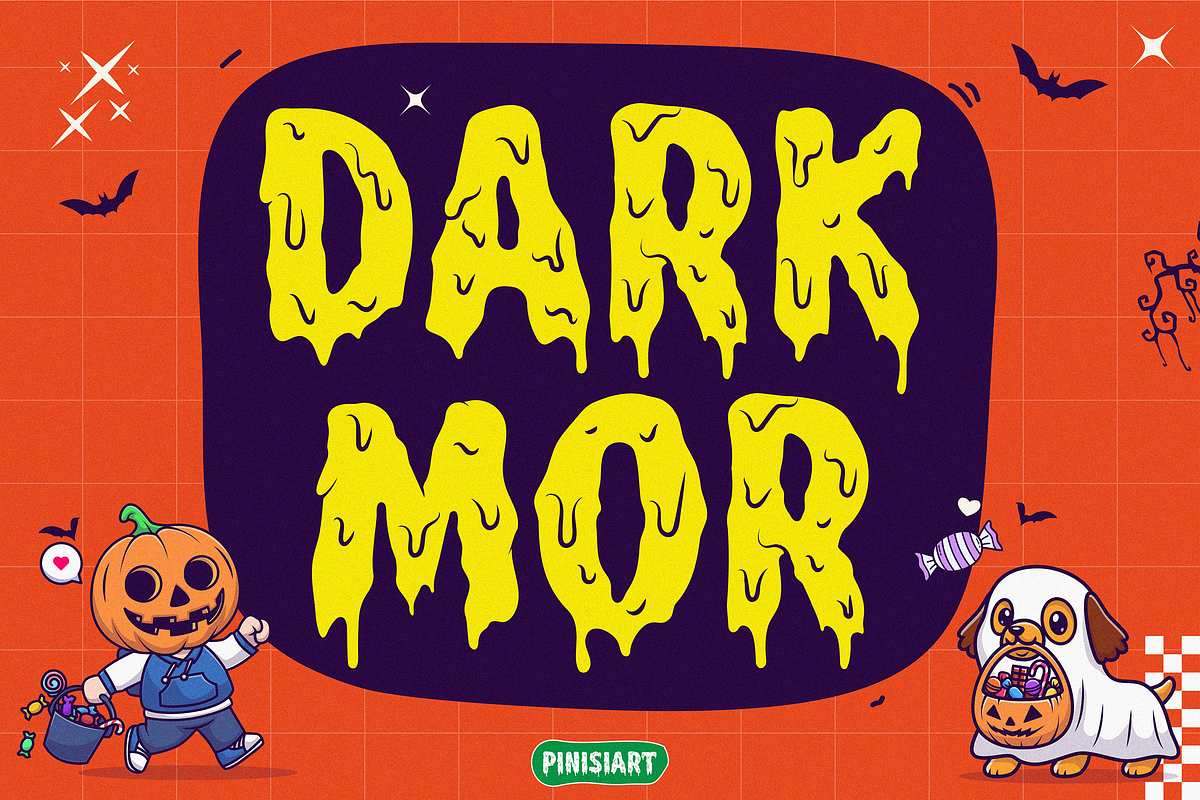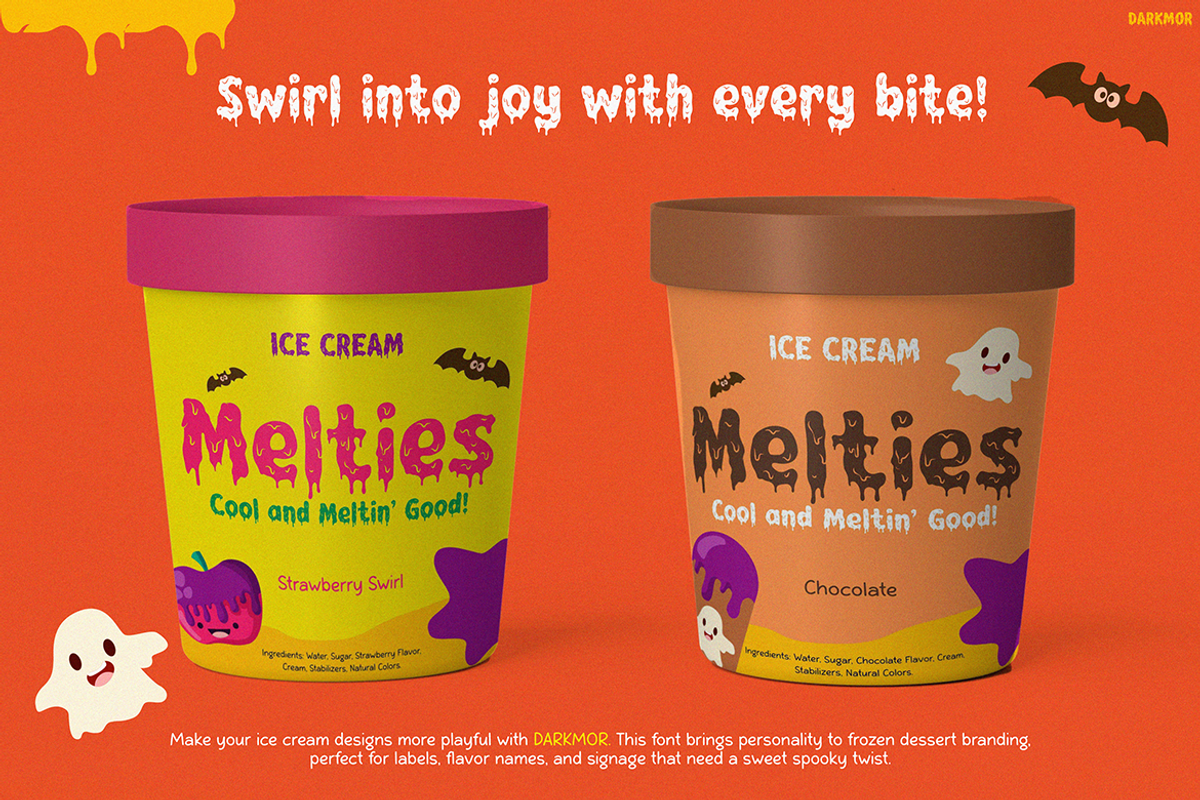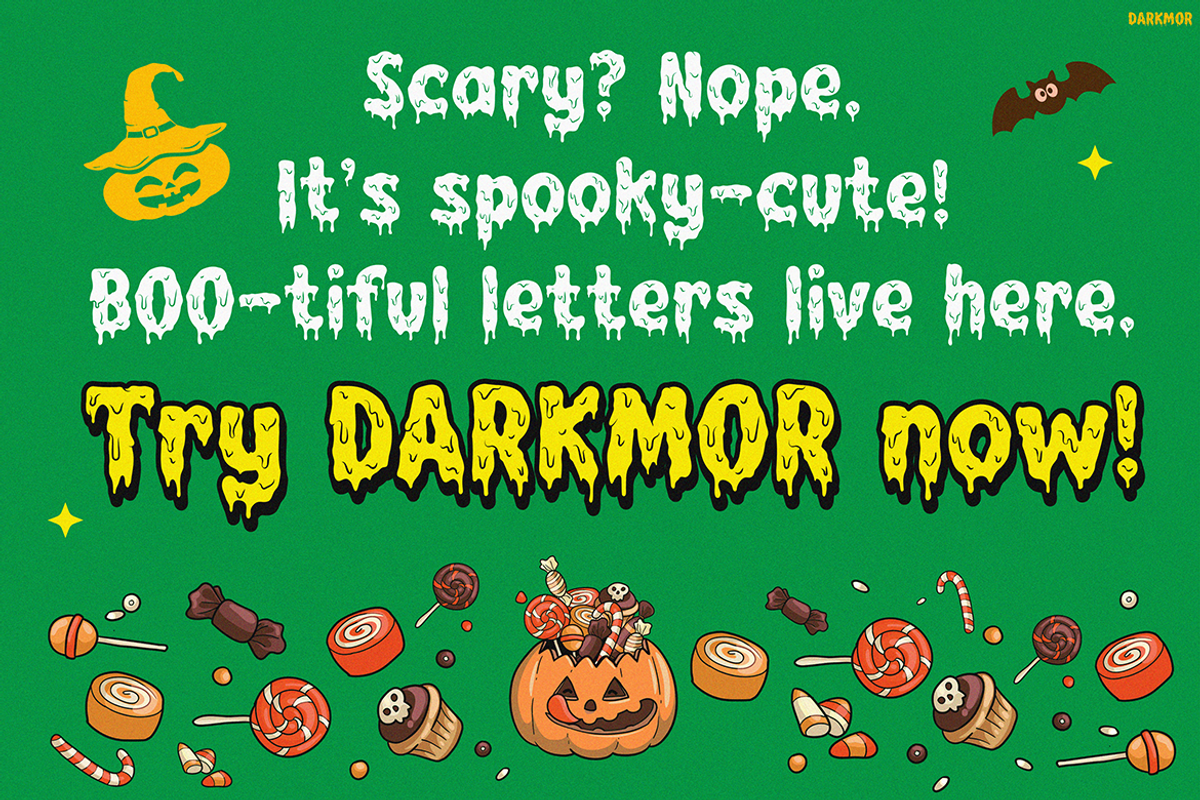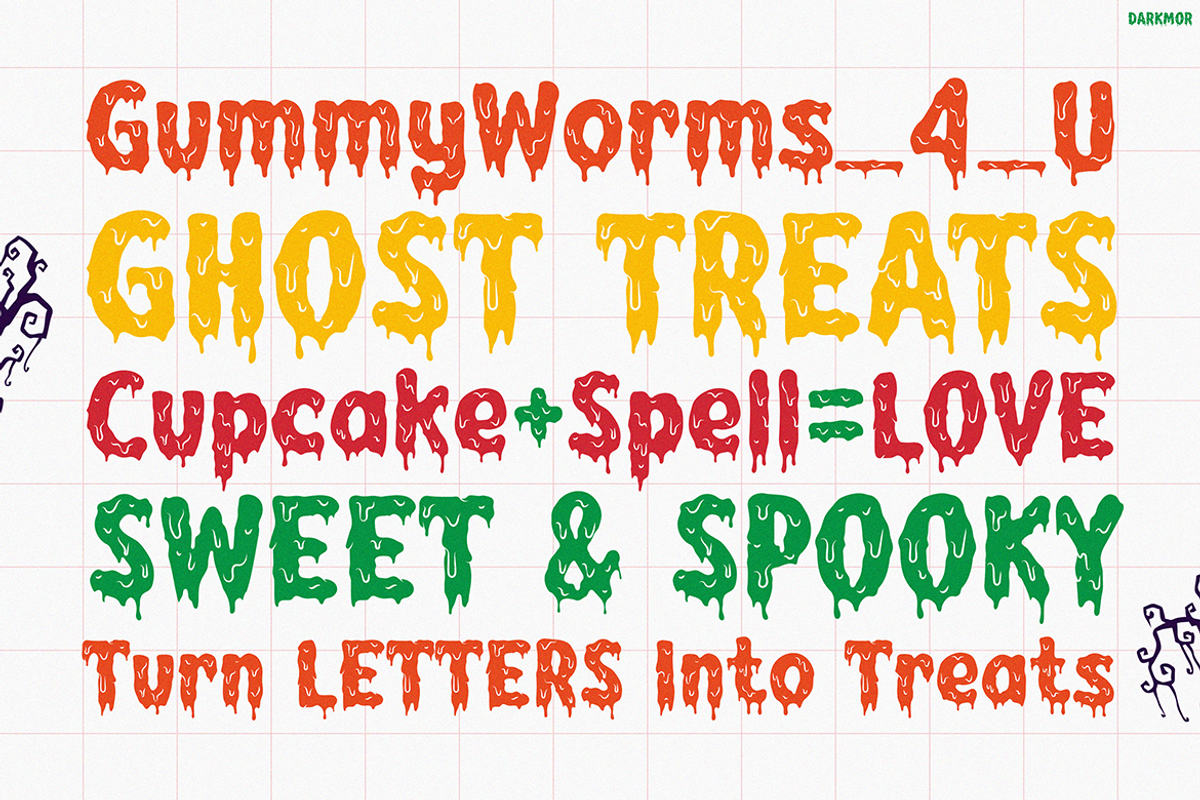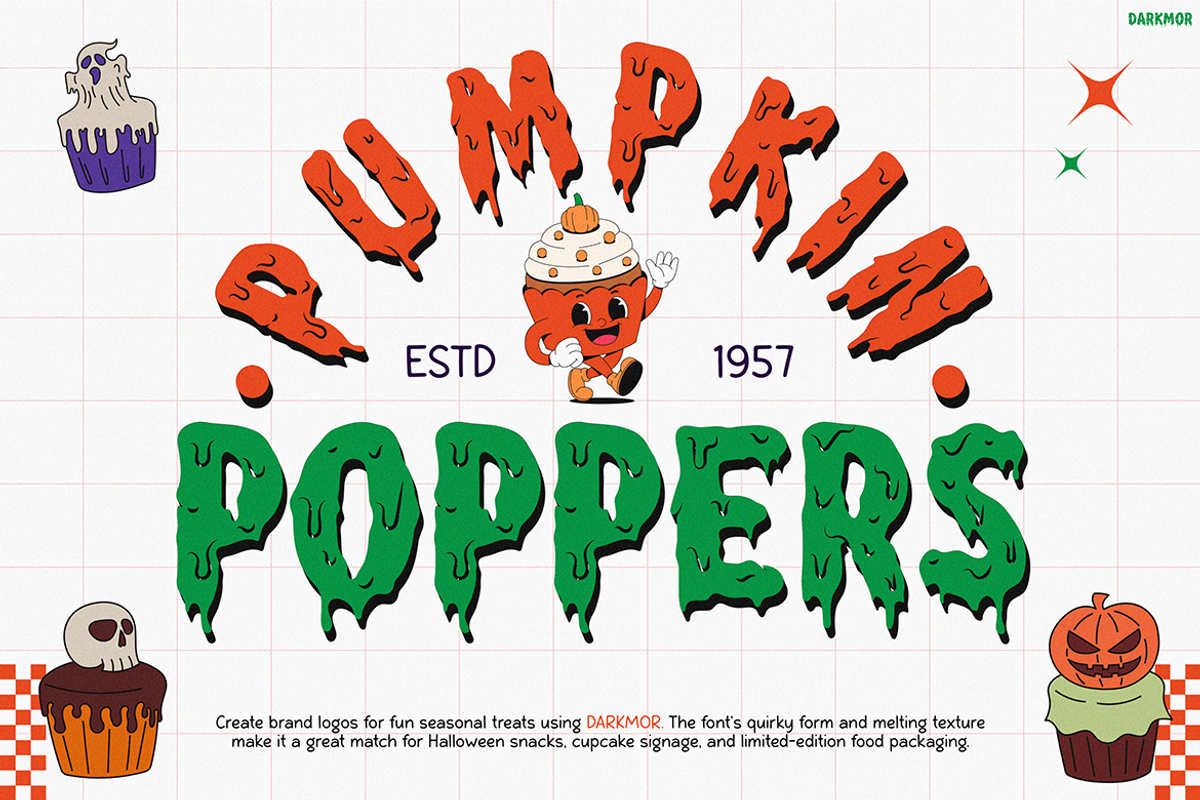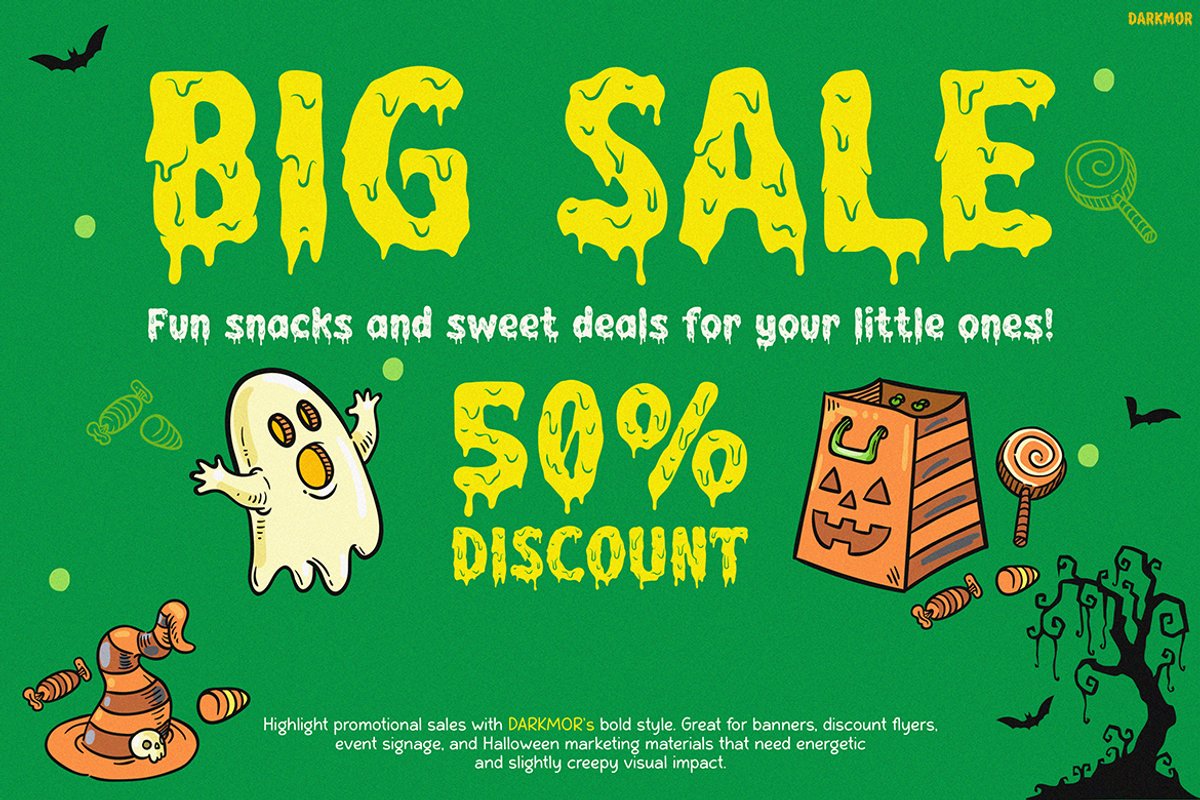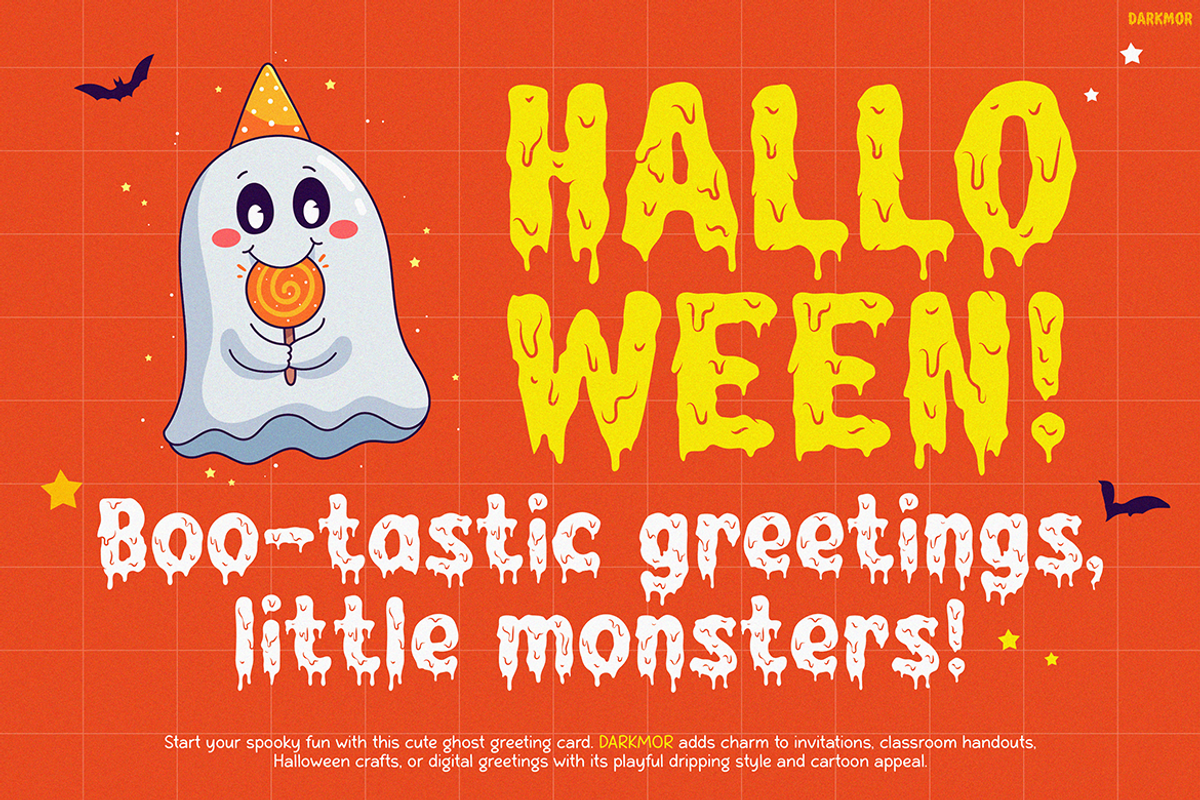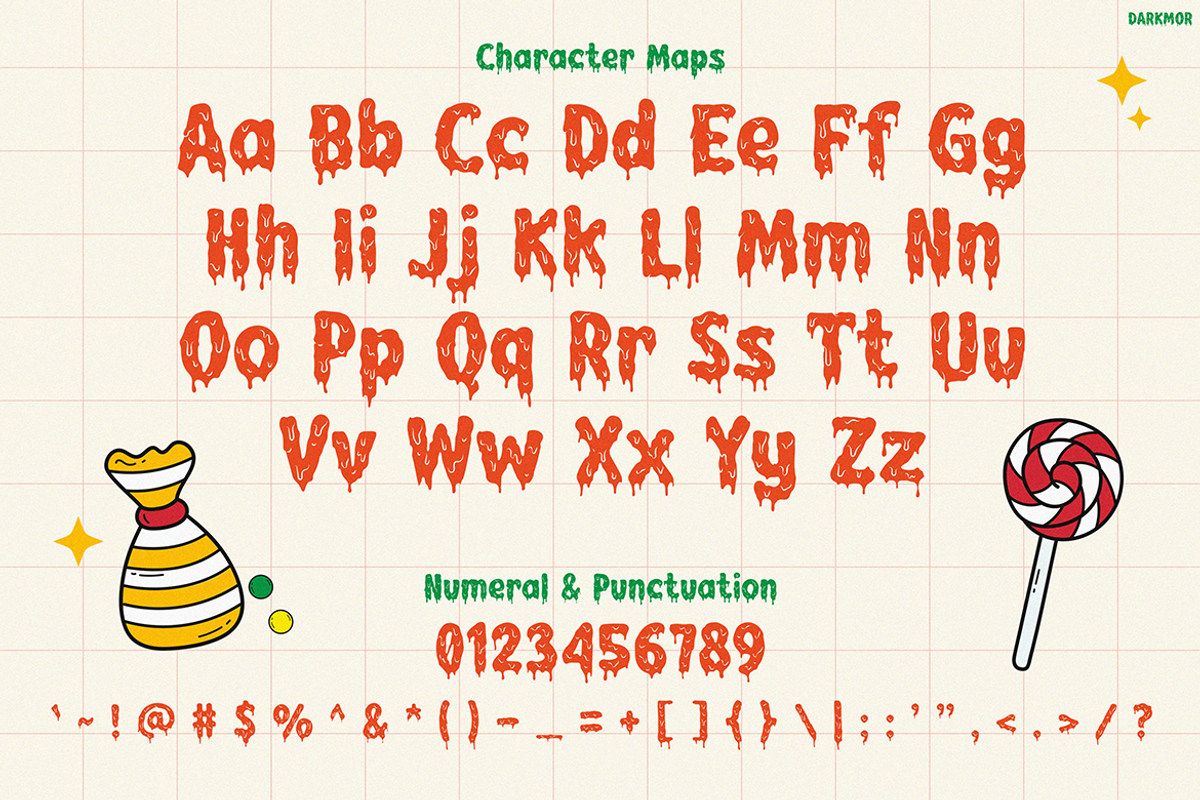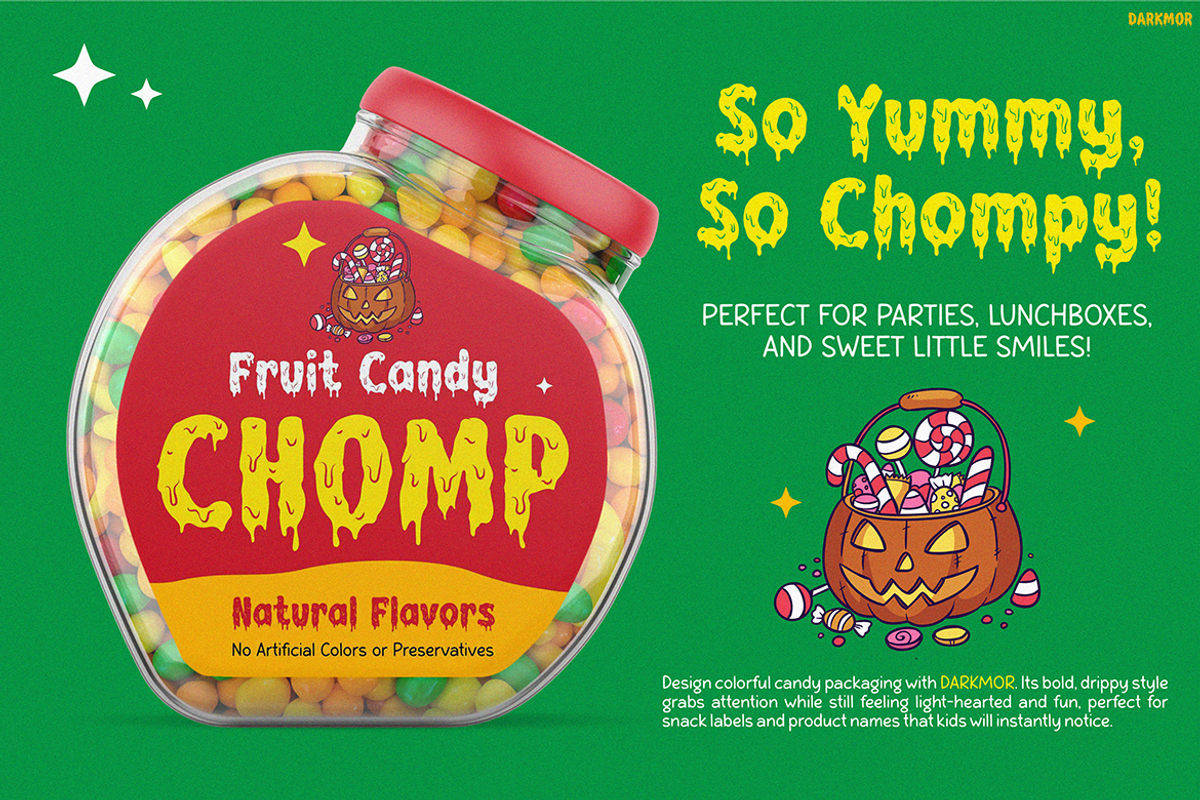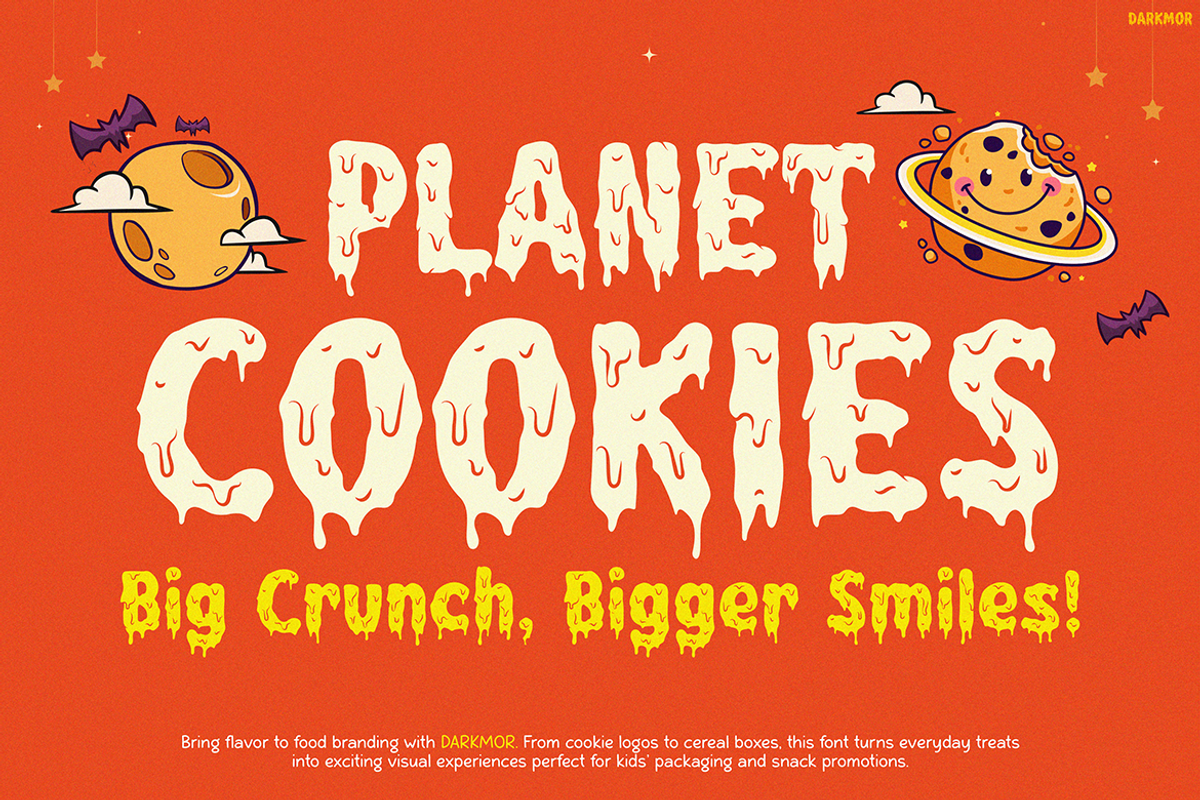
DARKMOR
Scary Font DARKMOR: A Dripping Delight for Playful and Spooky Designs Scary Font DARKMOR combines creepy charm with playful fun. Its bold, drippy letterforms instantly grab attention and add quirky personality to your designs. Inspired by Halloween and candy-themed aesthetics, DARKMOR is scary, yet still light-hearted. Therefore, it’s perfect for projects that need a spooky twist without being too frightening.
Each character looks like it’s melting — gooey and fun to look at. The texture mimics slime, syrup, or dripping chocolate, which gives it a lively and interactive feel. Moreover, this unique style helps your design pop off the page or screen. It’s especially great for children’s products, candy packaging, or Halloween-themed graphics.
In addition, DARKMOR brings energy and personality to your work. It’s more than just a font — it’s an experience. Because of its cartoon-inspired look, any message you write will feel fun, mischievous, and festive.